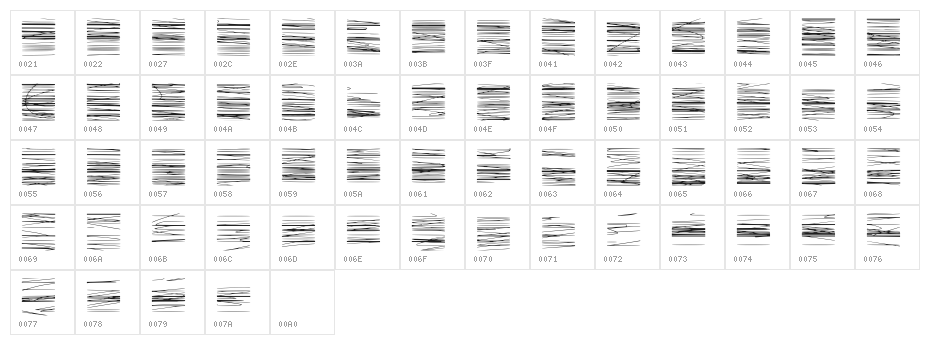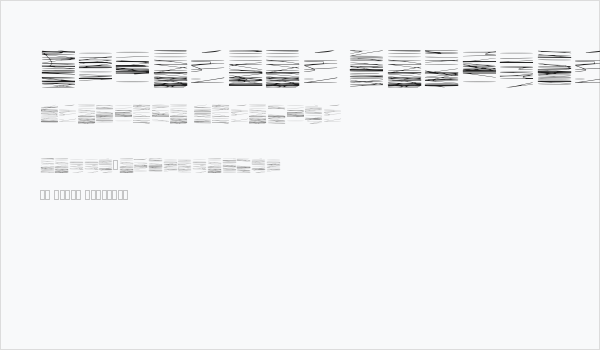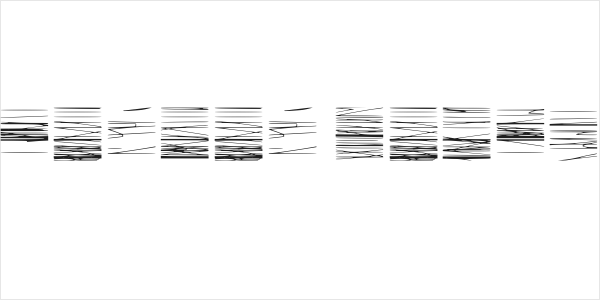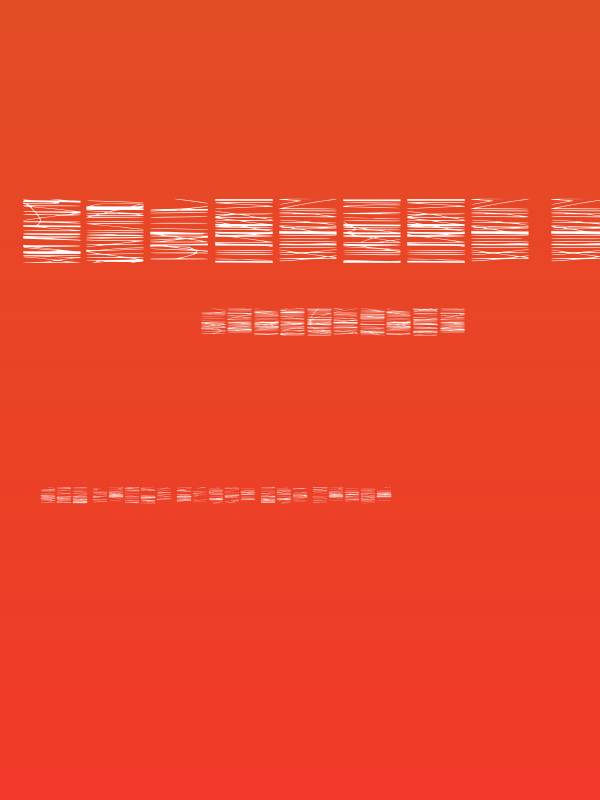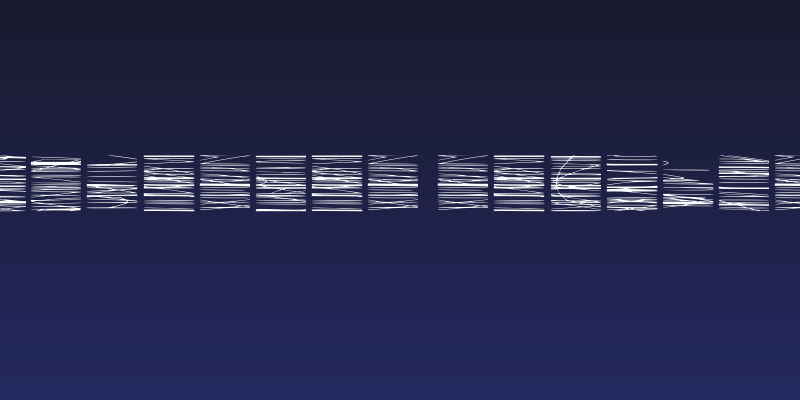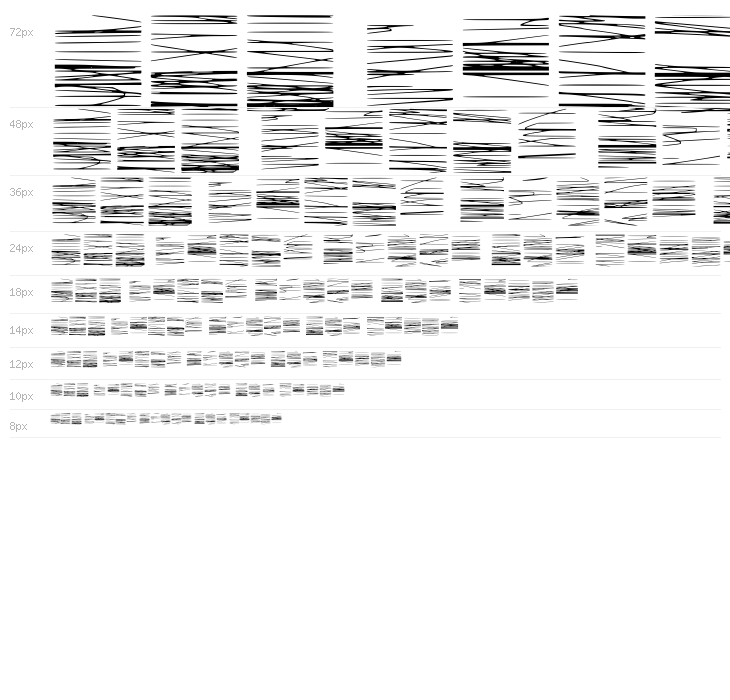
Interfer Regular Font
Interfer Regular Description
This is not a valid font. The image appears to contain abstract or distorted representations rather than recognizable characters or glyphs typically associated with a font. The lines and shapes do not form coherent letters or symbols that can be used for typographic purposes.
| Overall Style | Abstract |
| Proposed Projects | This image is not suitable for typographic projects. |